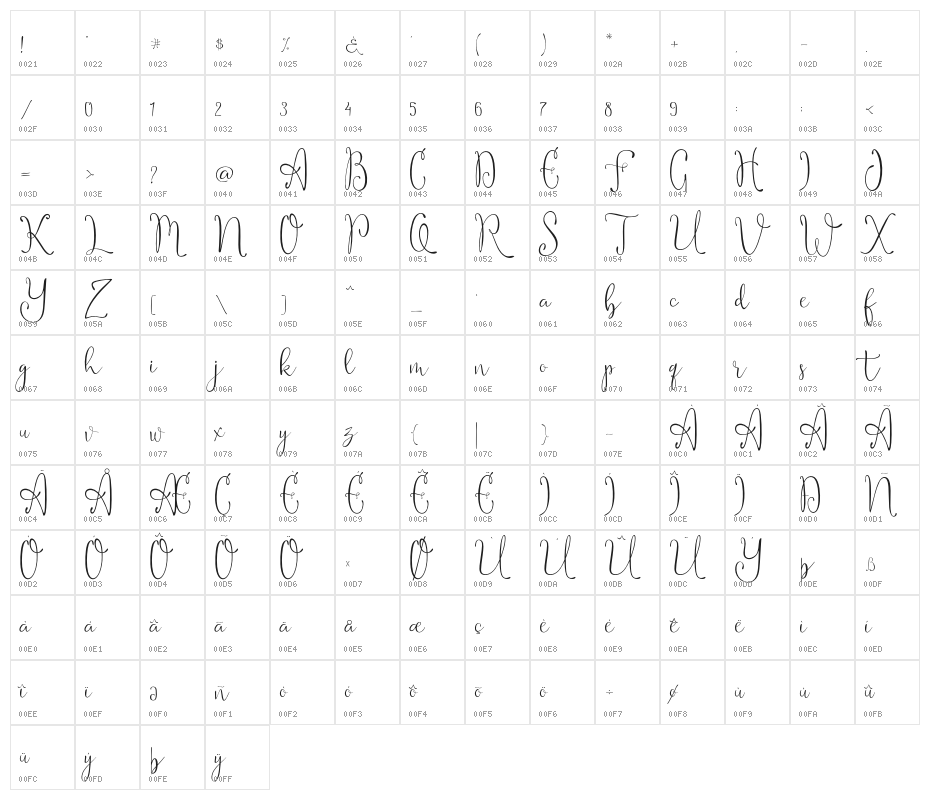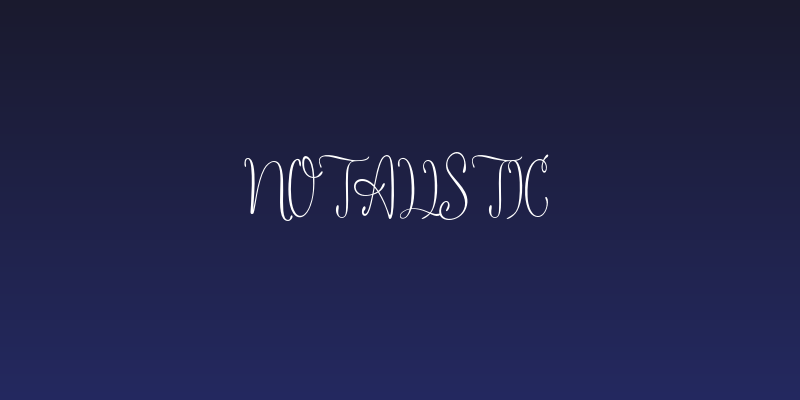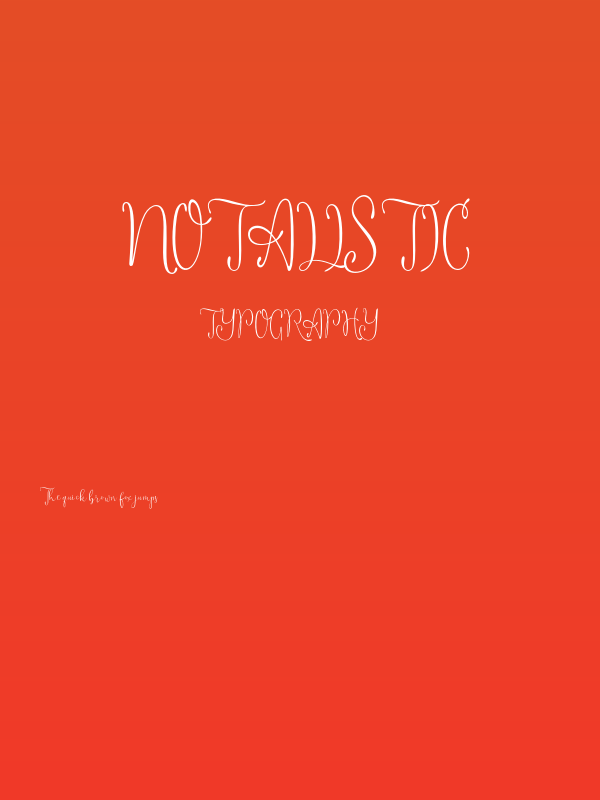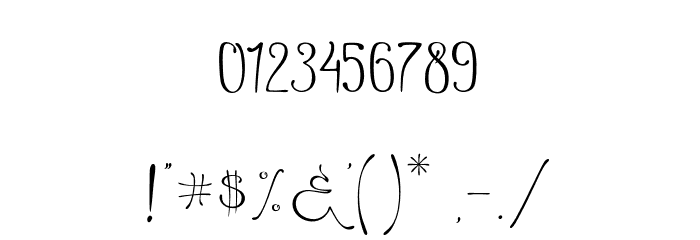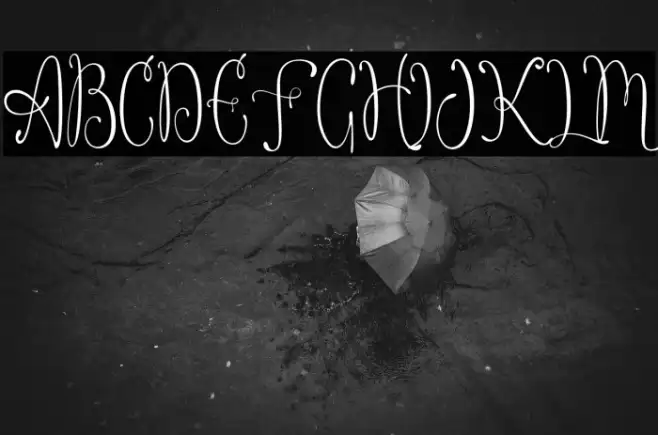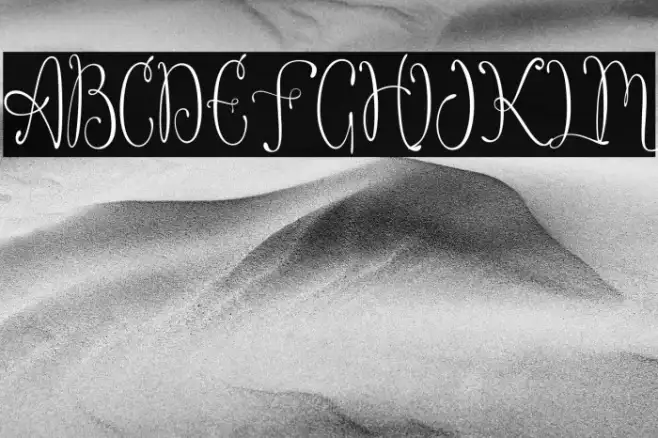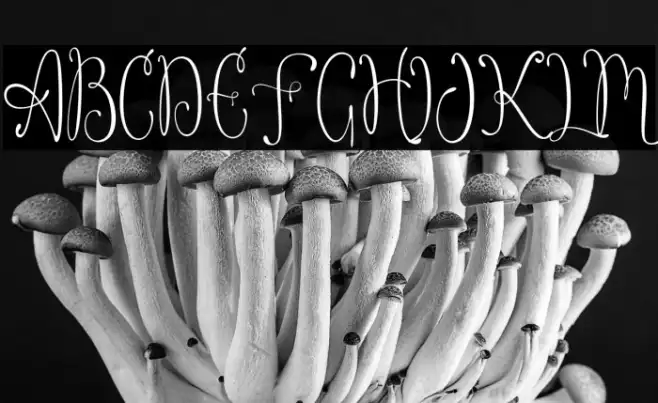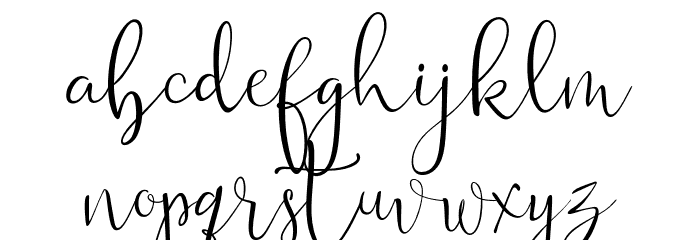
Notalistic Font
Notalistic Description
This font features an elegant, flowing script style with a whimsical touch. The uppercase letters are characterized by their tall, slender forms and intricate loops, giving them a sophisticated yet playful appearance. The lowercase letters maintain a consistent flow, with some characters extending below the baseline, adding to the font's dynamic nature. The numerals are distinct and maintain the same elegant style, ensuring readability while complementing the overall aesthetic. Special characters are creatively designed, fitting seamlessly with the rest of the font. This font's unique style makes it suitable for projects that require a personal, artistic touch.